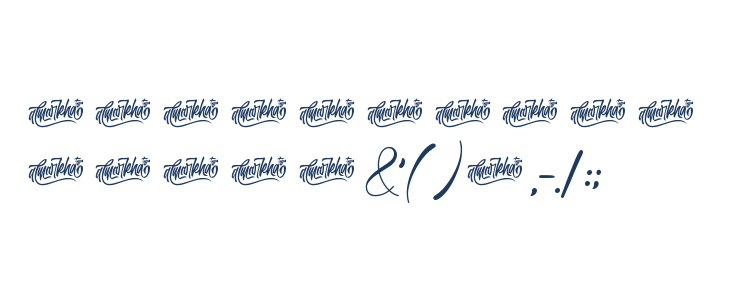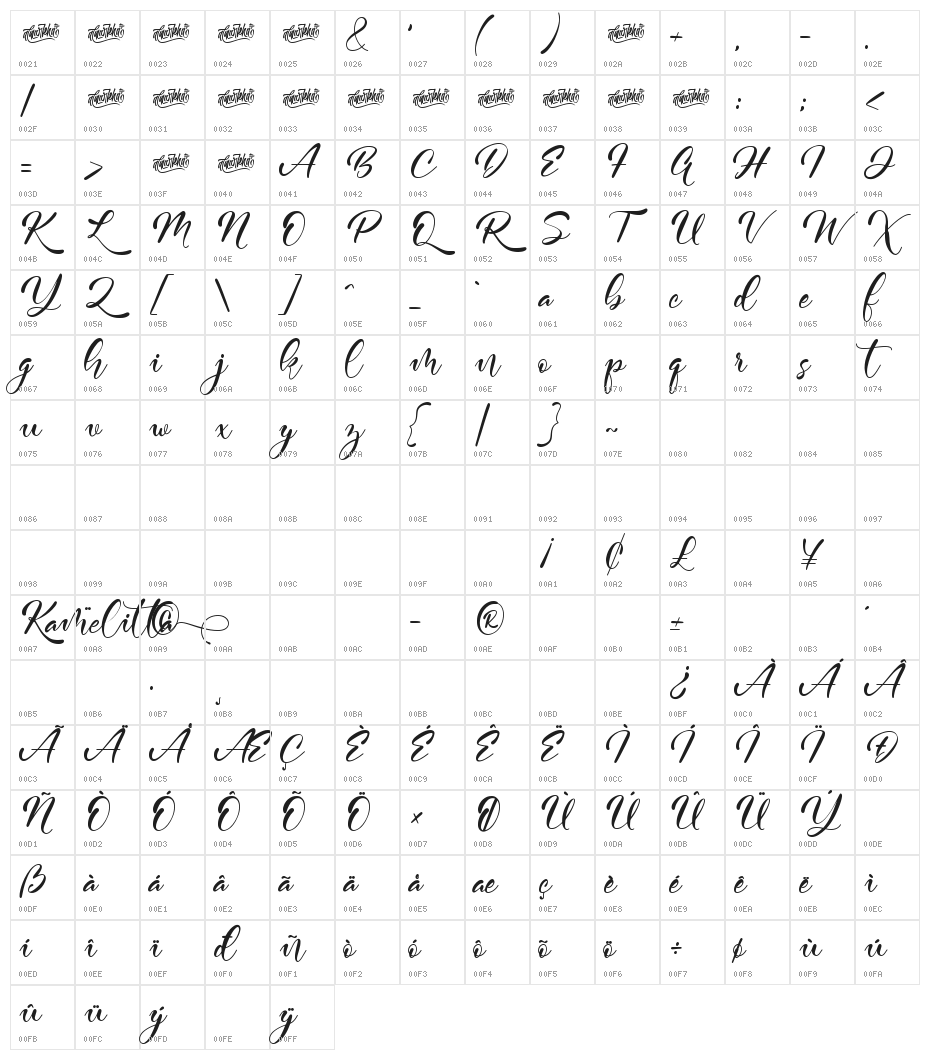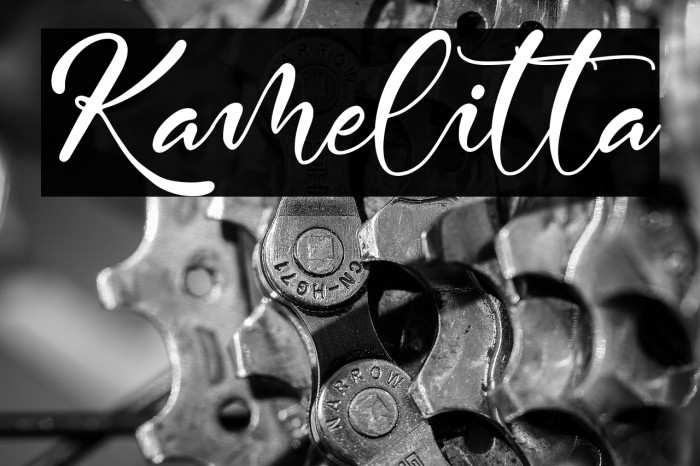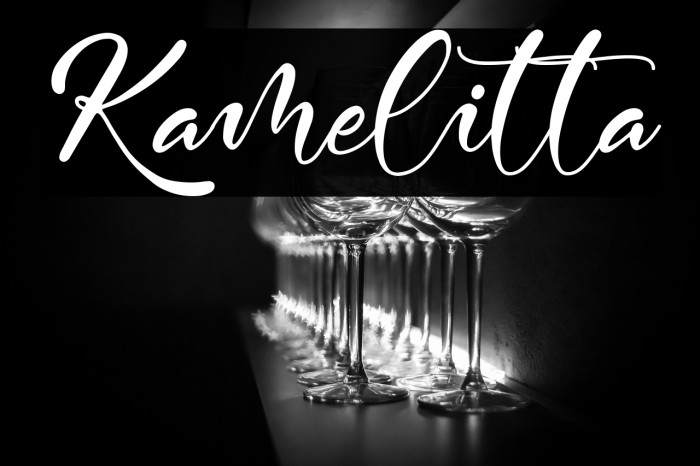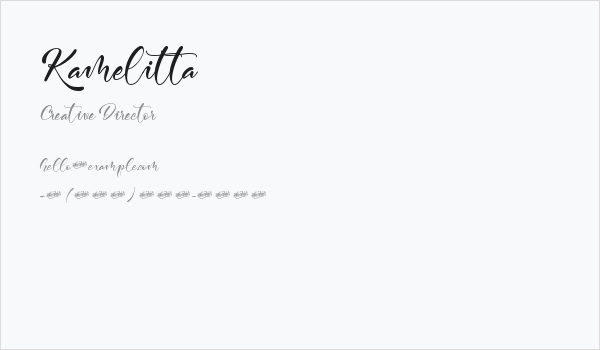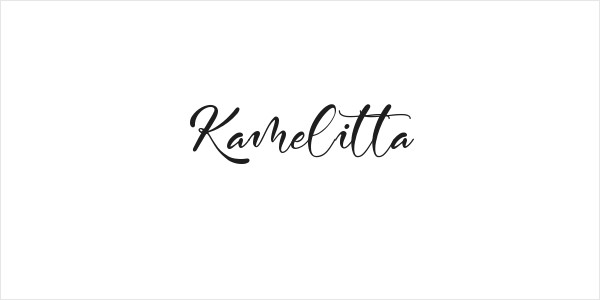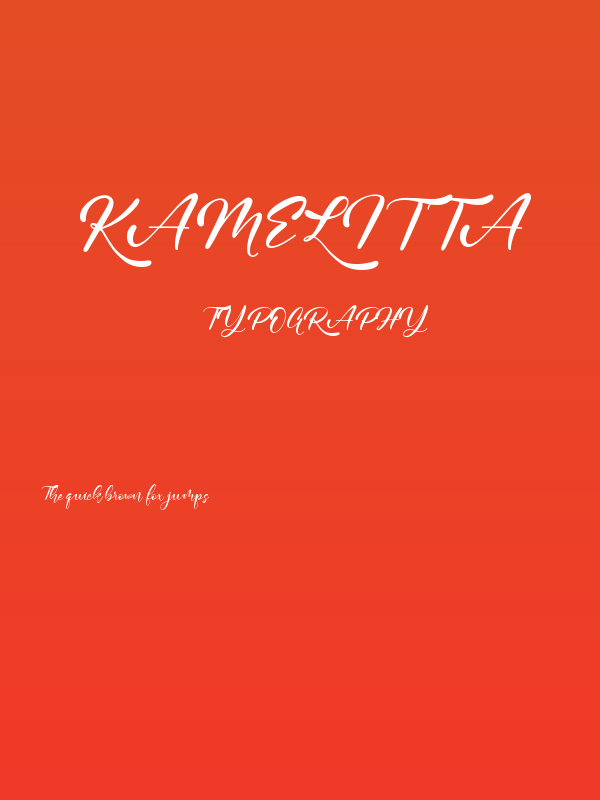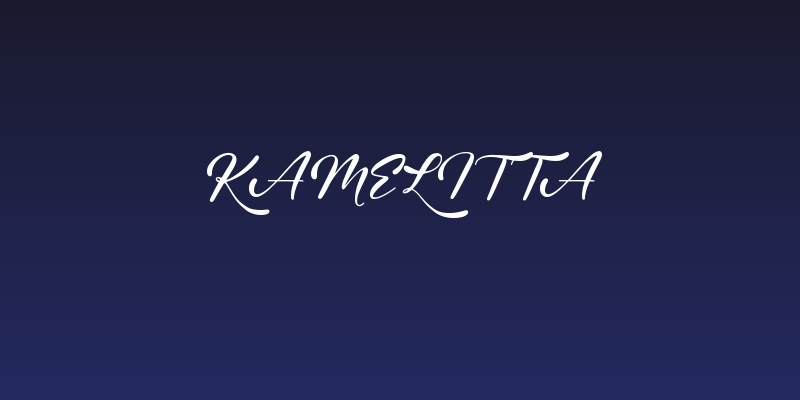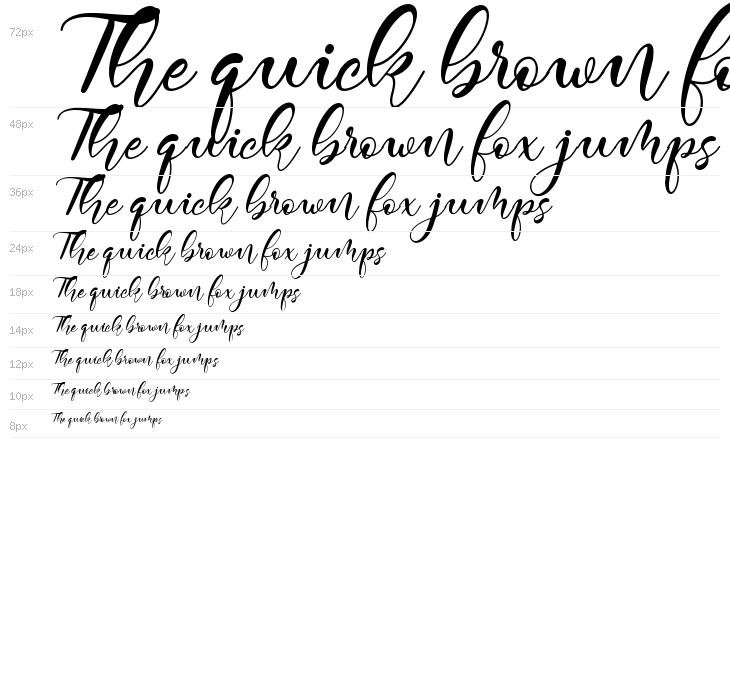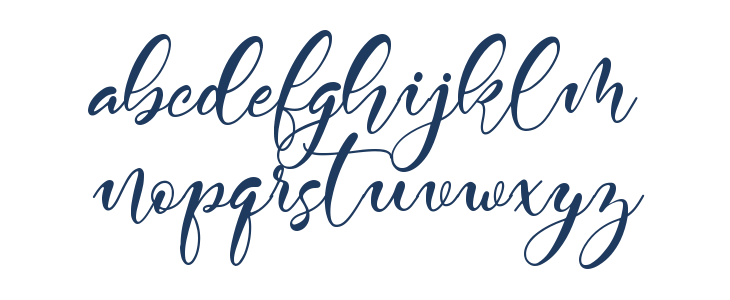
Kamelitta Font
Kamelitta Description
This elegant script font features fluid, cursive strokes that convey a sense of sophistication and grace. The uppercase letters are bold and sweeping, with intricate loops and flourishes that add a touch of drama. The lowercase letters maintain a consistent flow, with gentle curves and connections that create a harmonious appearance. The numbers and special characters are designed to match the overall aesthetic, ensuring a cohesive look across all text. This font is perfect for projects that require a touch of elegance and style, such as wedding invitations, branding, and high-end product packaging.
| Proposed Projects | Ideal for wedding invitations, luxury branding, and elegant product packaging. |